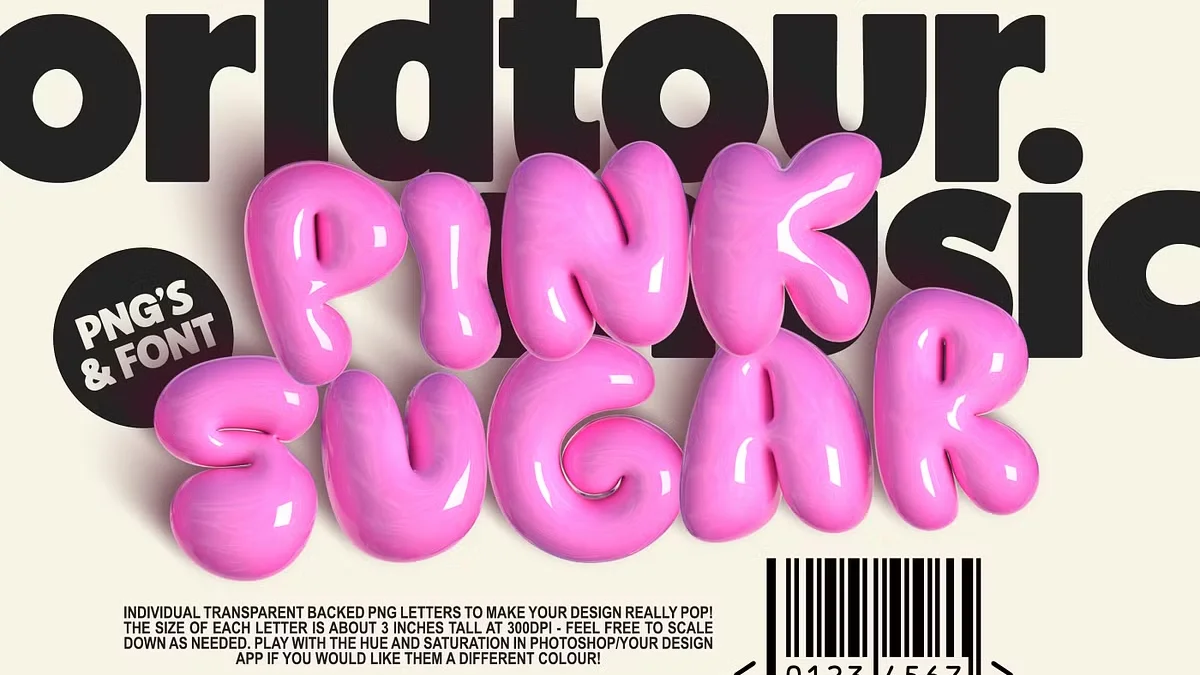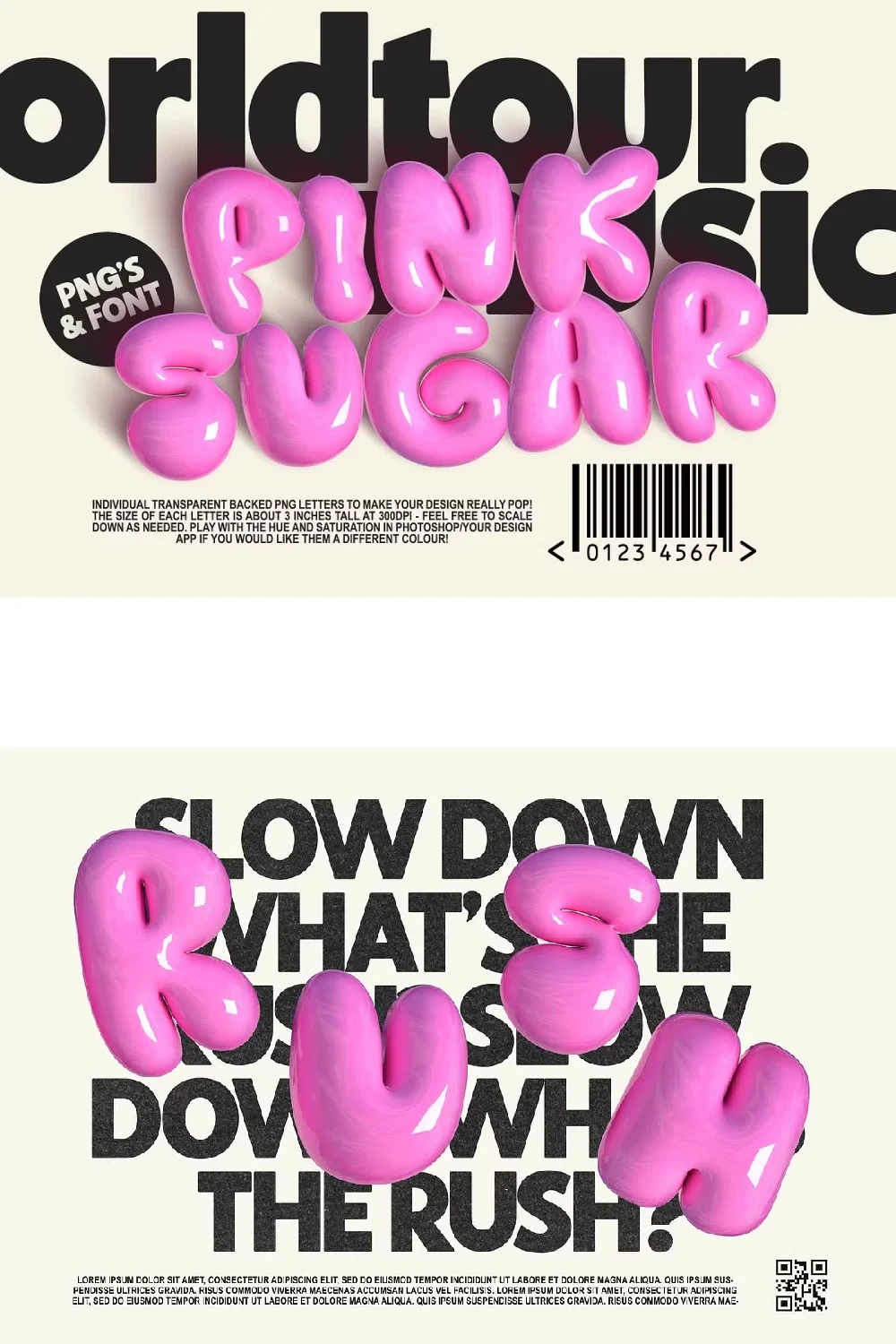
Pink Sugar Letters and SVG Font by Nicky Laatz
Your Guide to Creating Stunning, Playful Designs with the Pink Sugar Letters and SVG Font.
Some digital assets just have that special something. They possess a spark of personality that can instantly transform a good design into an unforgettable one. The Pink Sugar letters and SVG font by the celebrated designer Nicky Laatz is precisely one of those gems. It’s more than just a set of characters; it’s a complete toolkit for injecting joy, vibrancy, and a touch of glossy fun into any creative project. This guide is your complete reference, walking you through everything this incredible pack offers. It will show you exactly how to leverage its unique features for your own work. What truly makes this digital asset pack so special and a favorite among creators? Let’s explore why the Pink Sugar collection has become a go-to resource for designers everywhere.
At its heart, this collection from Nicky Laatz is pure digital candy. It’s designed to give your text a beautiful, super shiny, 3D effect without any complicated steps. The aesthetic is playful, modern, and incredibly eye-catching. When you get the pack, you receive two main components that offer different levels of creative control.
First, you get a full character set of individual PNG letters. These are high-resolution image files with transparent backgrounds. Each letter, number, and symbol is a perfectly rendered 3D object with a glossy, light-catching finish. Think of them as digital building blocks for your words.
Pink Sugar Letters vs. The SVG Font: Which Should You Choose?
This is a fantastic question, and the answer depends on your project’s needs and your preferred workflow. While both options deliver that signature Pink Sugar look, they serve slightly different purposes. Nicky Laatz herself often recommends leaning towards the PNG letters, and for good reason.
The individual PNG letters offer unparalleled creative control. Since each letter is a separate image, you can manually place, rotate, and resize each one independently. Do you want to make the “O” a little bigger or tilt the “S” for a more dynamic feel? With the PNGs, you can do that with simple drag-and-drop precision. This level of control is what adds that extra layer of custom-made playfulness to your typography. It helps you break free from the rigid baseline of a traditional font, creating a truly unique and lively layout.
On the other hand, the SVG Bitmap font is all about convenience. You install it, select it, and simply type. It’s a faster way to lay out text, especially for longer phrases or sentences where manual placement would be too time-consuming. It’s an excellent option for quick mockups or projects where a uniform layout is desired. Ultimately, for those high-impact, custom-feeling designs, the PNG letters will be your best friend.
Unlocking Creative Freedom with the Pink Sugar Letters: Sizing and Customization
The technical specifications of the Pink Sugar letters and SVG font are just as important as their aesthetic. Understanding them ensures your final designs look crisp and professional, whether they are for digital screens or print.
When it comes to sizing, the PNG letters are built for high-quality work. They are rendered to print out beautifully at a maximum size of around 3 inches tall in a 300dpi document. This resolution is perfect for most print projects, like stickers, invitations, or small packaging details. Of course, you are always free to downscale them to fit any digital design, from a social media post to a website banner. The SVG letters have a fixed height of 800 pixels, which is a limitation related to SVG font file sizes, but still generous for most web-based applications.
Here’s where the real magic happens for Photoshop users. If you have a moderate skill level in Photoshop (specifically CC20 or newer), you are not just limited to pink! You can actually tweak the color of the PNG letters to match your brand or design palette perfectly. Imagine these glossy, 3D letters in a cool mint green, a sunny yellow, or a sophisticated navy blue. This feature dramatically expands the versatility of the pack, making the Pink Sugar letters and SVG font an even more valuable asset in your design library.
Before you start creating, it’s essential to know if your software can handle these files. The good news is that at least part of this pack is incredibly accessible.